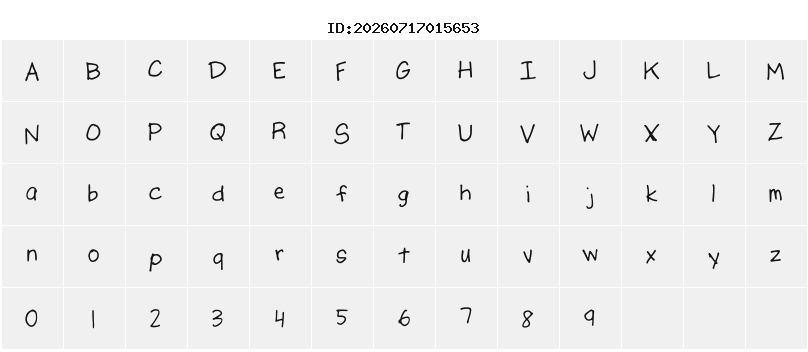
AJPutMeFirst Preview
• Font Name: AJPutMeFirst
• Full Font Name: AJPutMeFirst
About AJPutMeFirst.ttf
AJPutMeFirst.ttf is a modern, elegant sans-serif font designed for ultimate readability and visual harmony. Perfect for branding, headlines, web design, and print materials.